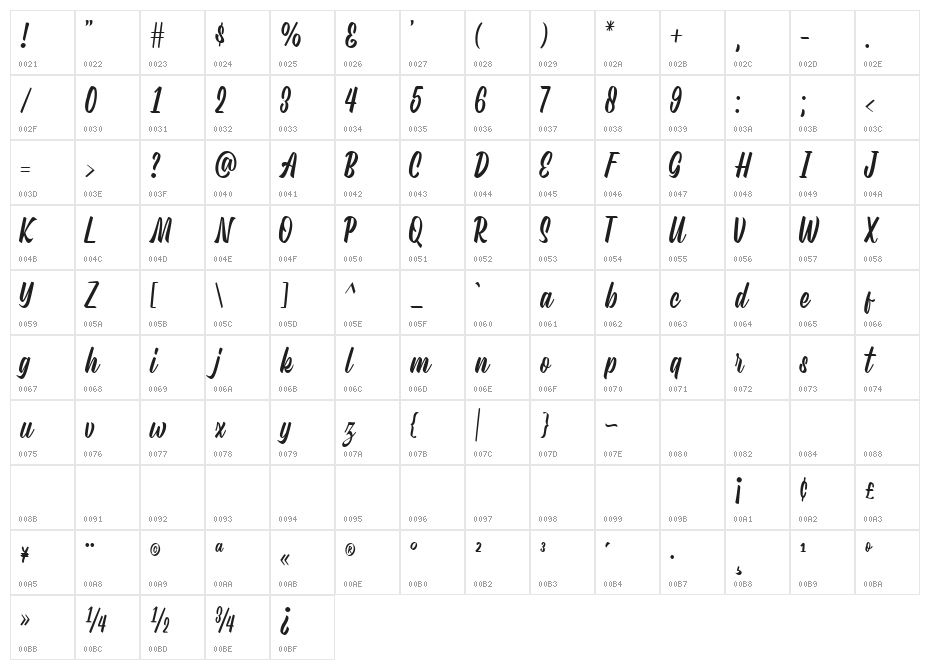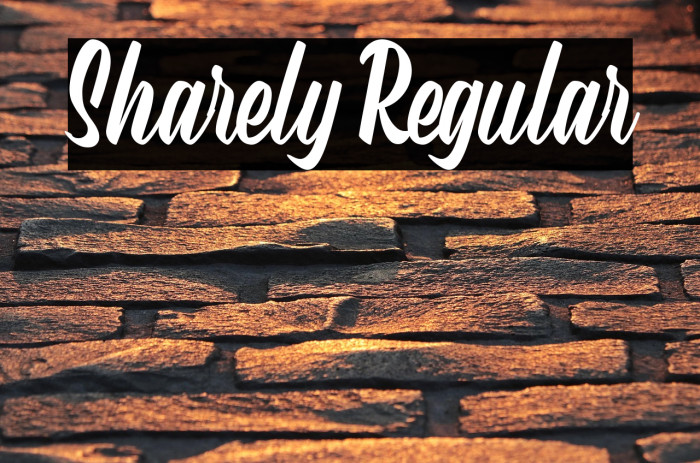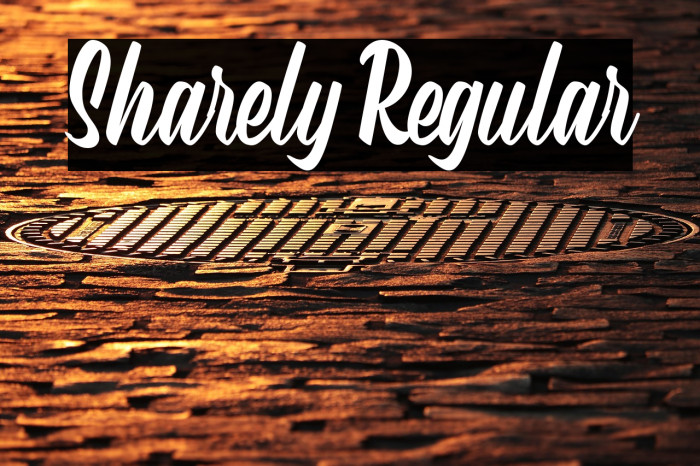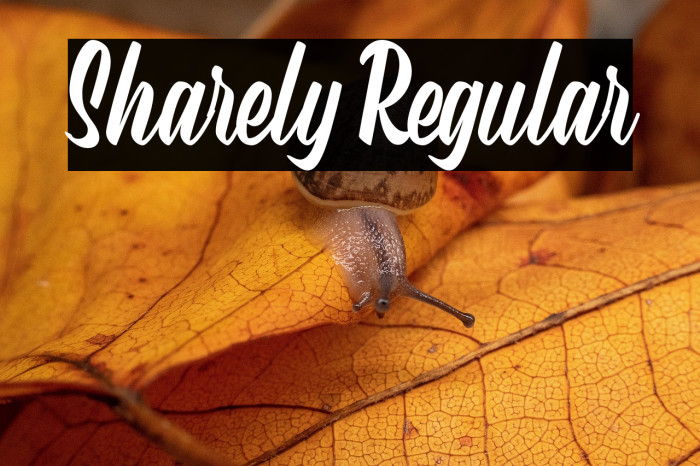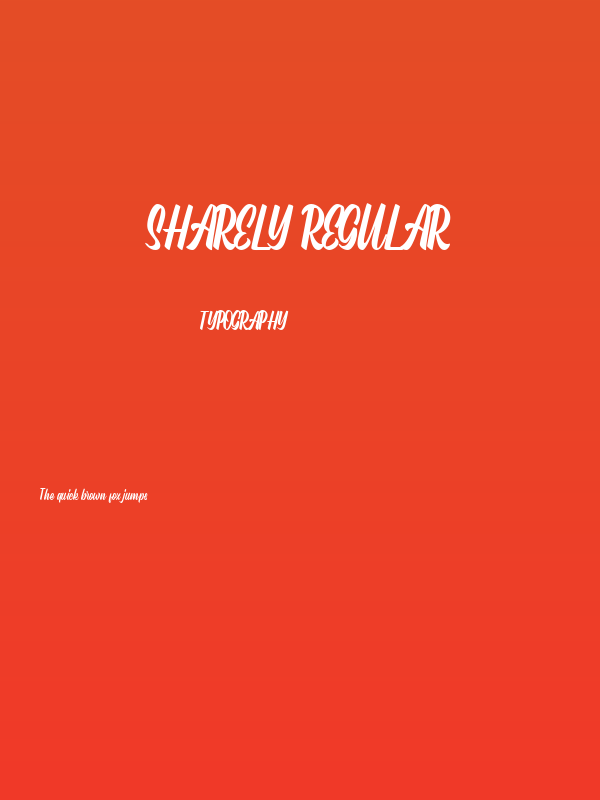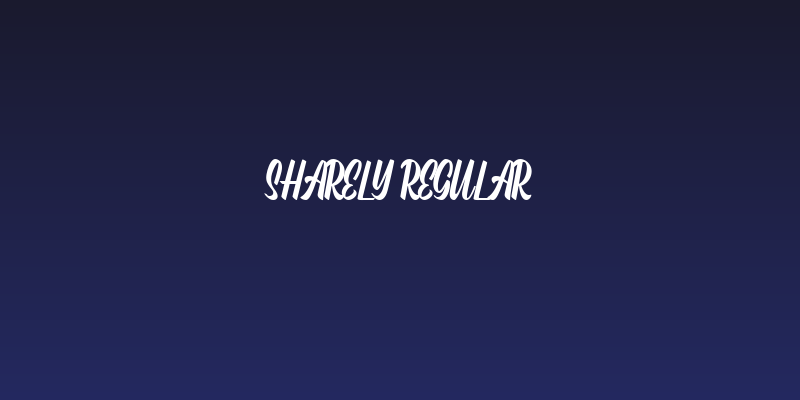
Sharely Regular Font
Sharely Regular Description
This font exhibits a dynamic and flowing script style, characterized by its elegant and cursive letterforms. The uppercase letters are bold and sweeping, with a sense of movement that adds a lively touch to any text. The lowercase letters maintain a consistent flow, enhancing readability while preserving the script's artistic flair. The numerals are well-integrated, matching the overall style with their rounded and fluid shapes. Special characters are thoughtfully designed, ensuring they complement the font's aesthetic. This font is ideal for projects that require a personal and expressive touch, such as invitations, branding, and creative designs.